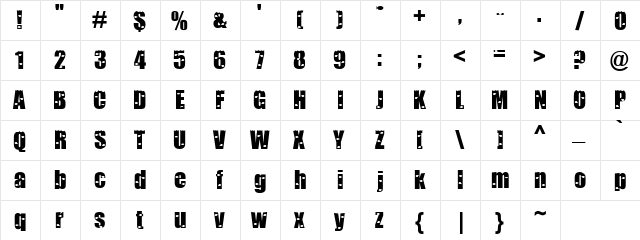
Fishy Types Regular
Design Context for Fishy Types Typeface
Fishy Types is a composed and adaptable typeface that performs quietly and consistently across a wide range of design contexts.